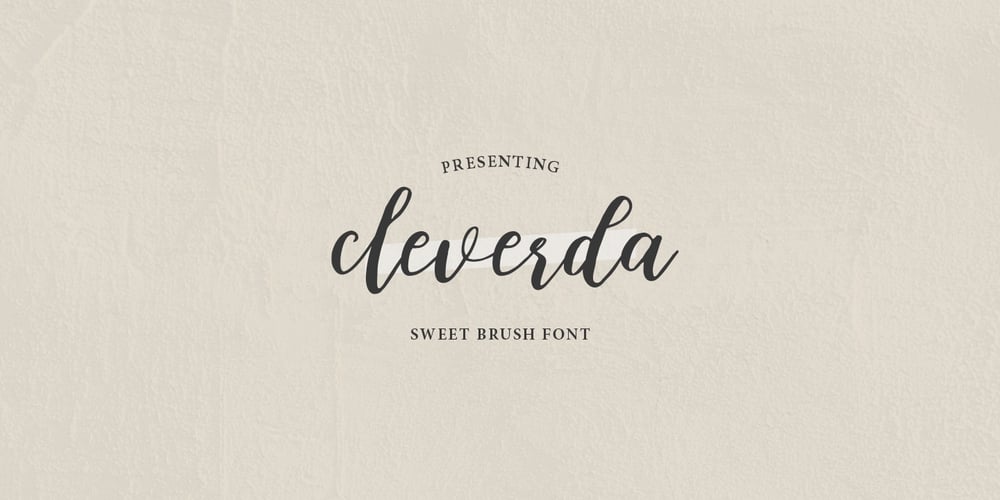
Cleverda Font Family was designed by Alam Syahril and published by Realtype. Cleverda contains 1 styles and family package options. Cleverda Script is a beautiful hand painted script, organic, fun with dancing baseline and different ligatures. This fonts can be used for various purposes.such as headings, signature, logos, wedding invitation, t-shirt, letterhead, signage, labels, news, posters, badges etc.